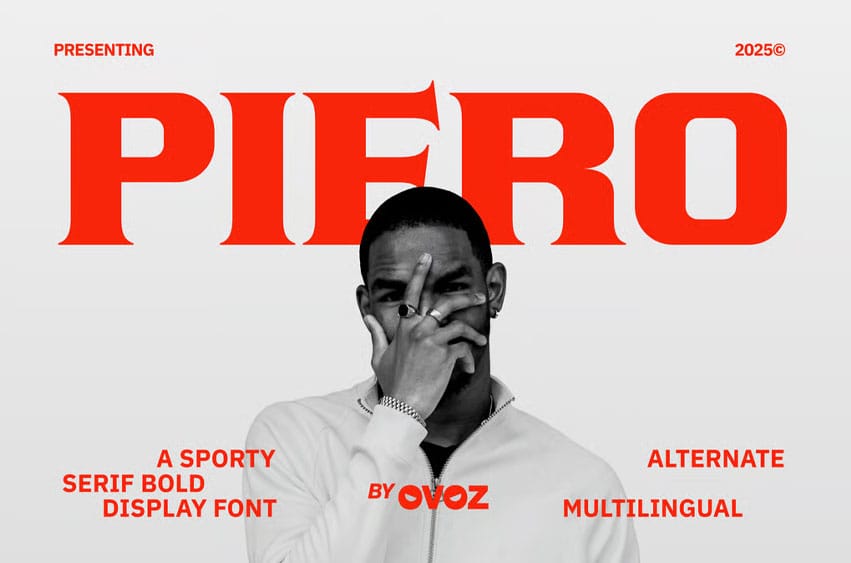
Piero Sports Font is a sporty serif bold display font that blends refined elegance with powerful athletic energy. Its strong serifs, sculpted curves, and confident proportions make it ideal for sports branding that needs a premium, authoritative presence. From football headlines to basketball posters, baseball merchandise, soccer promotions, racing visuals, and fitness-driven campaigns, PIERO delivers a bold sport identity with a stylish competitive edge. Perfect for gym apparel, golf tournaments, athletic events, and sporty editorial layouts, this typeface elevates every design with structure, influence, and visual impact.
Crafted for both modern performance and classic athletic culture, PIERO adapts seamlessly across jersey numbers, biker tournament visuals, hockey promotions, and fight-event branding. Its sophisticated yet forceful character creates a striking presence suitable for multi-sport campaigns, race graphics, and athletic identity systems seeking a unique serif-driven strength. Whether used for dynamic sports marketing or premium fitness branding, PIERO ensures every message lands with clarity, authority, and unmistakable competitive style.
Bold Moves, Strong Letters — where dynamic sport energy meets modern precision to create a fearless competitive identity.